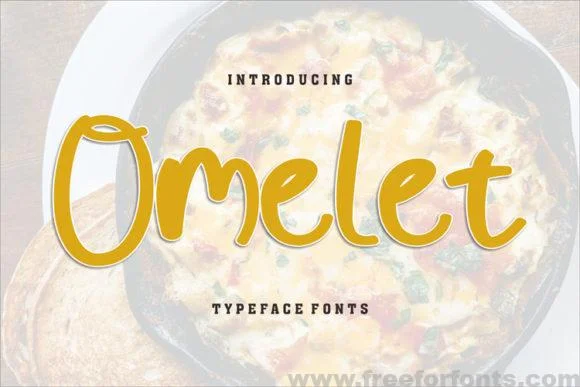
Omelet
Omelet Font is perfect for breakfast restaurant branding, cafe menus, food blog headers, culinary magazines, cookbook covers, kitchen product packaging, bakery signage, recipe cards, food delivery app interfaces, and playful dining establishment logos that need a fun and appetizing typographic style.
This font is exciting because it brings a fresh, friendly, and approachable personality to any design project with its unique character shapes that feel both modern and whimsical. The playful letterforms create an inviting atmosphere that perfectly captures the warmth and comfort associated with home-cooked meals and delightful dining experiences.
The Omelet Font family typically includes uppercase and lowercase characters, numerals, punctuation marks, basic symbols, and special glyphs that provide versatility for various food-related design projects and culinary branding applications.
Whether you're designing for breakfast spots, creating engaging food content, or developing brand identities for culinary businesses that want to stand out, Omelet Font Free Download delivers the perfect mix of personality and readability. Its distinctive style and cheerful appearance make every project feel more appetizing and memorable, ensuring your designs capture the delicious essence of great food while communicating warmth, friendliness, and culinary creativity that resonates with food lovers everywhere.